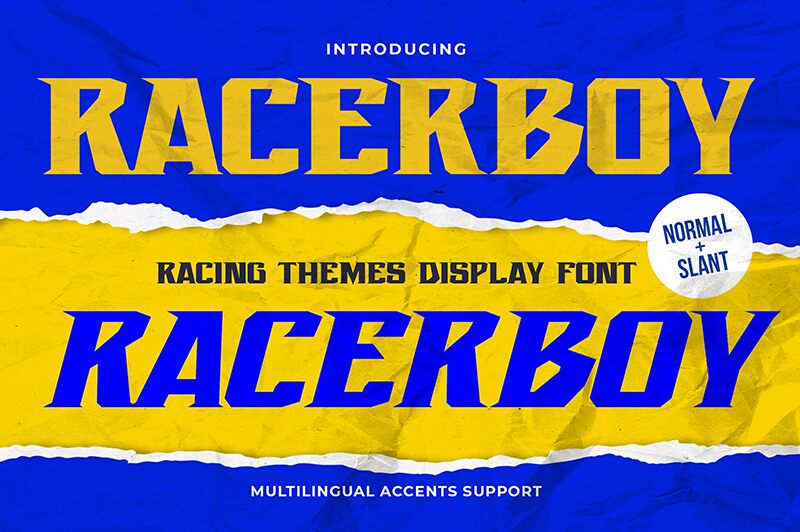
Racerboy Regular
Racerboy is a dynamic display font engineered by Gassstype that channels the adrenaline of racing and the sleekness of modern techno design. Its semi-bold weight projects strength without sacrificing speed, ideal for capturing attention and conveying movement. The sharp angles and clean lines evoke images of aerodynamic race cars cutting through the air, making it an excellent choice for automotive branding, event promotions, and gaming titles where a sense of excitement is paramount.
This typeface's aesthetic appeal lies in its balance between readability and stylistic flair; it carries a professional edge while also being distinct enough to leave a lasting impression. Whether splashed across a poster or used in digital interfaces, Racerboy stands out for its versatility while staying true to its racing-inspired roots. Its application could range from high-energy sports designs to cutting-edge technology themes, proving that Racerboy is not just a font but an embodiment of speed and style.